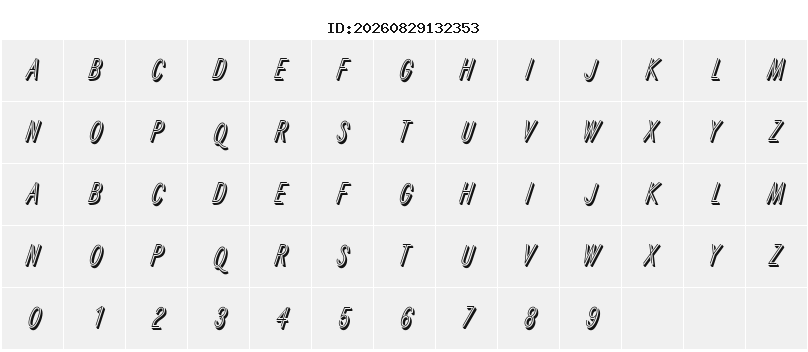
TheresaBecker Preview
• Font Name: TheresaBecker
• Full Font Name: TheresaBecker
• PostScript Name: TheresaBecker
About TheresaBecker.ttf
TheresaBecker.ttf is a modern, elegant sans-serif font designed for ultimate readability and visual harmony. Perfect for branding, headlines, web design, and print materials.